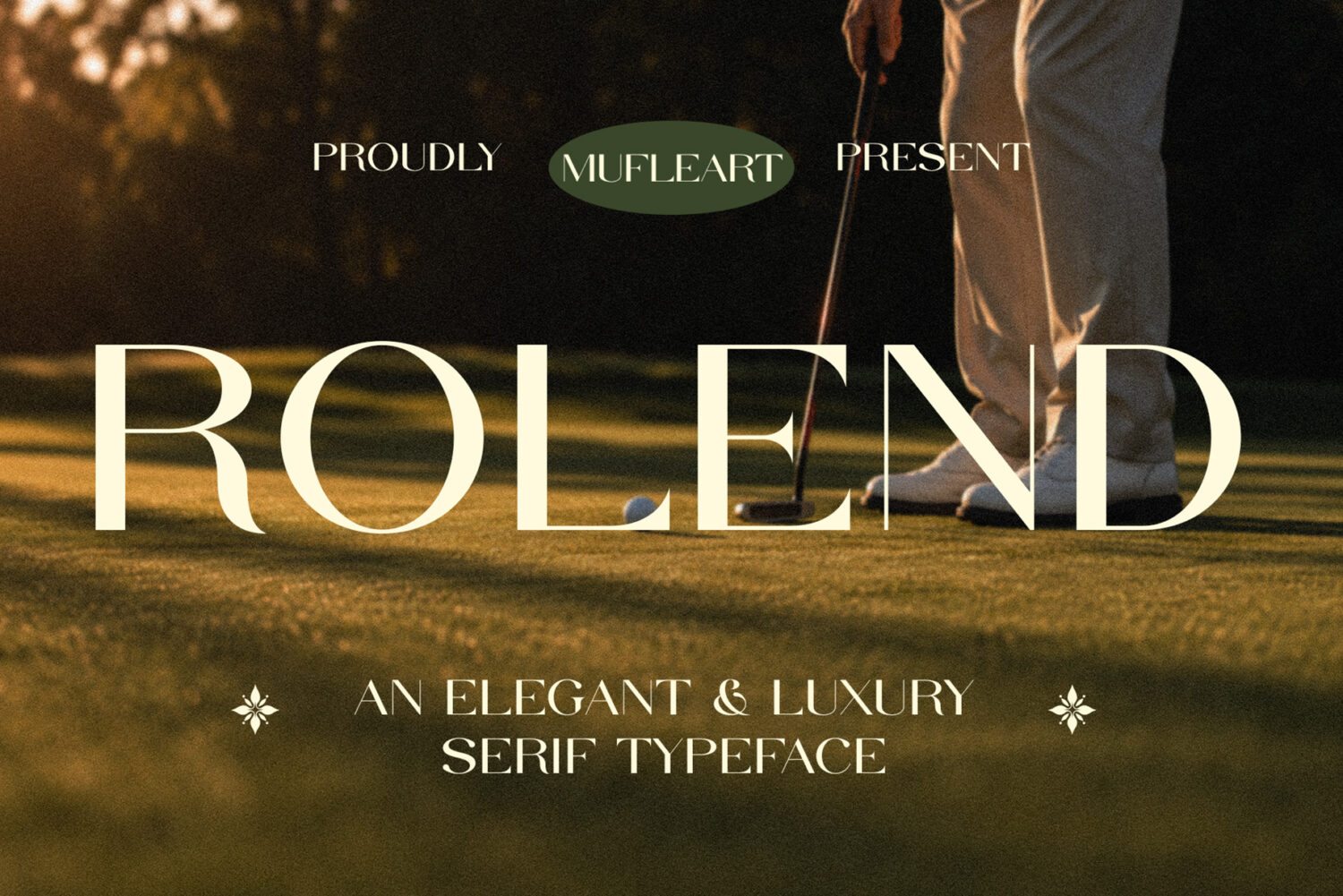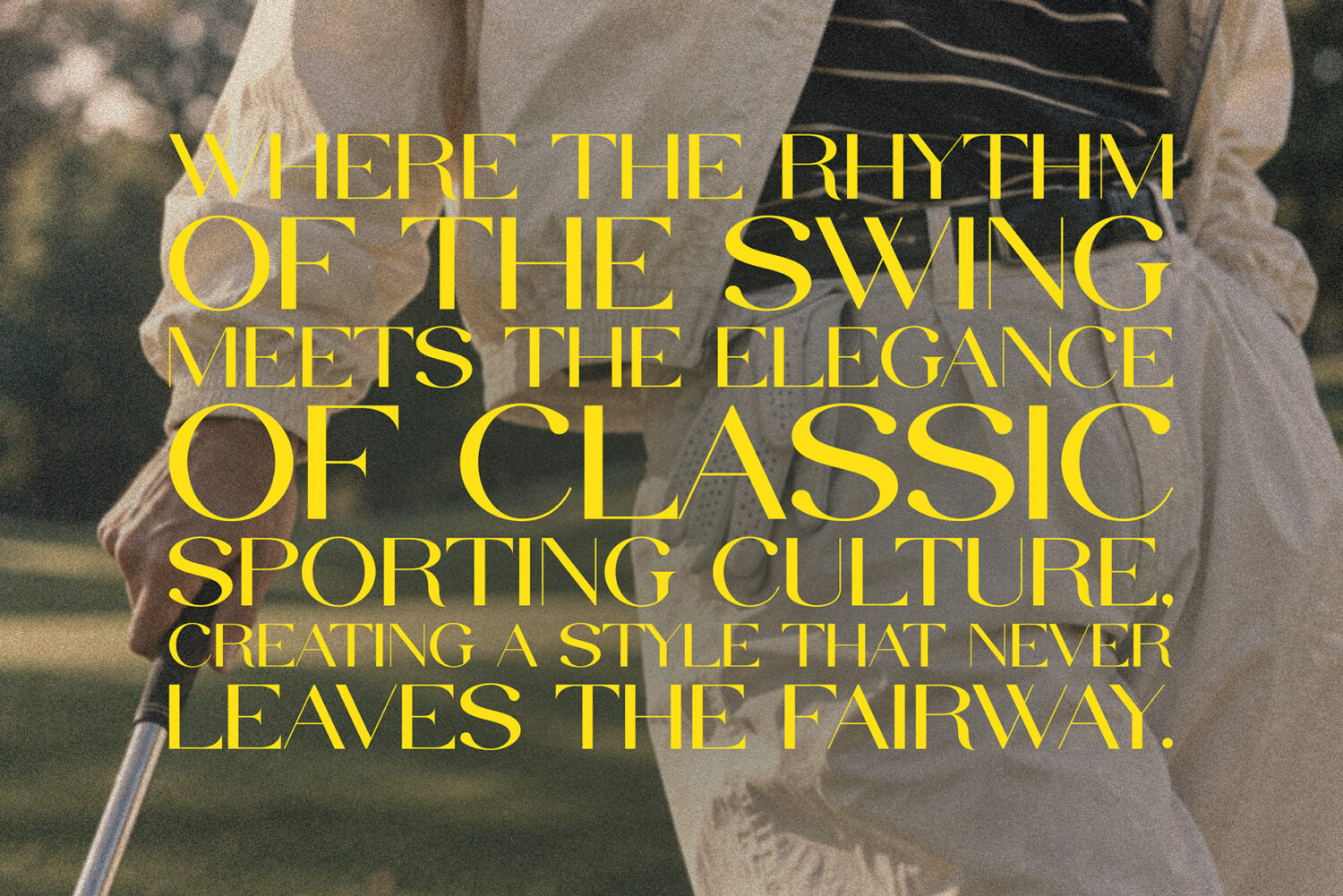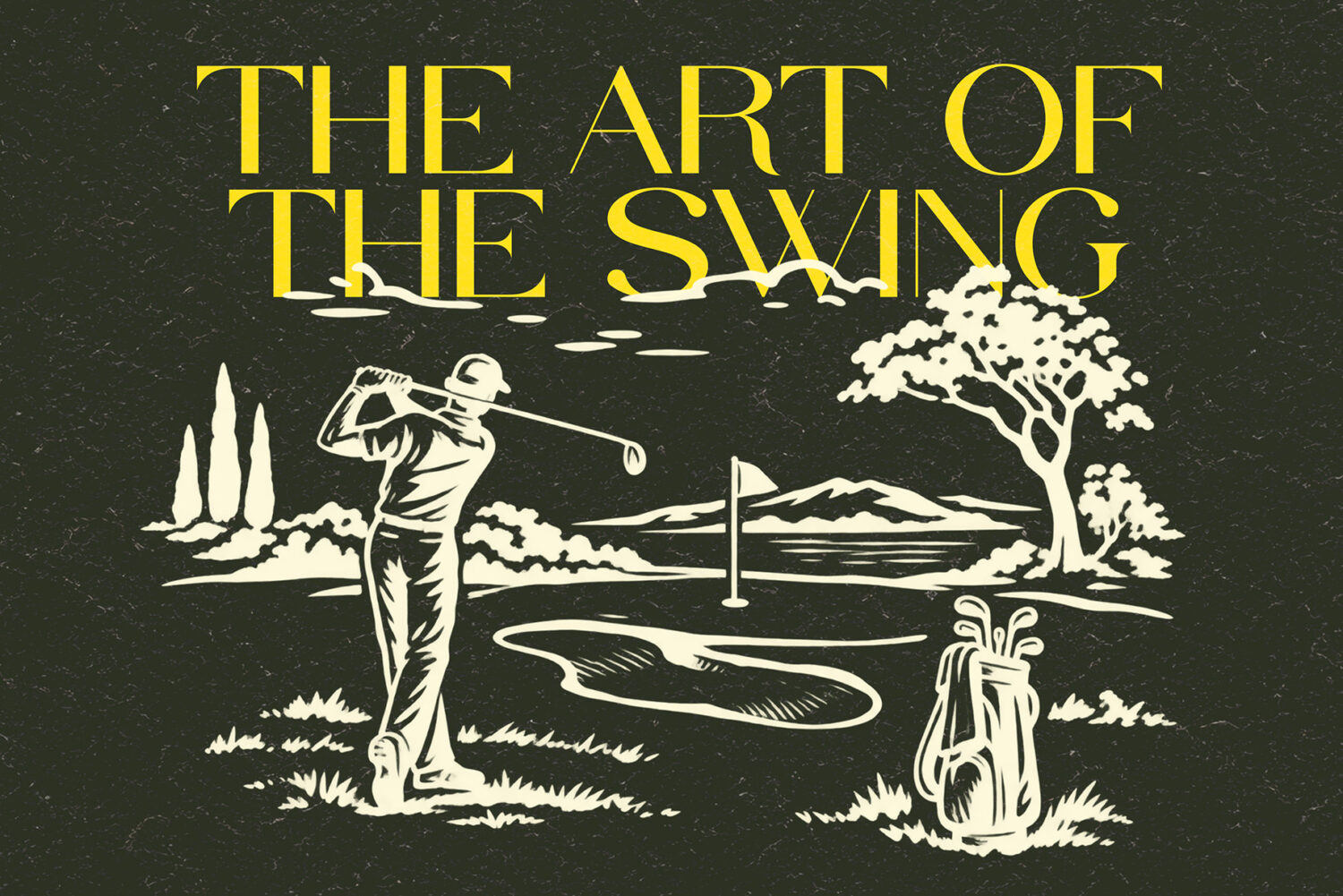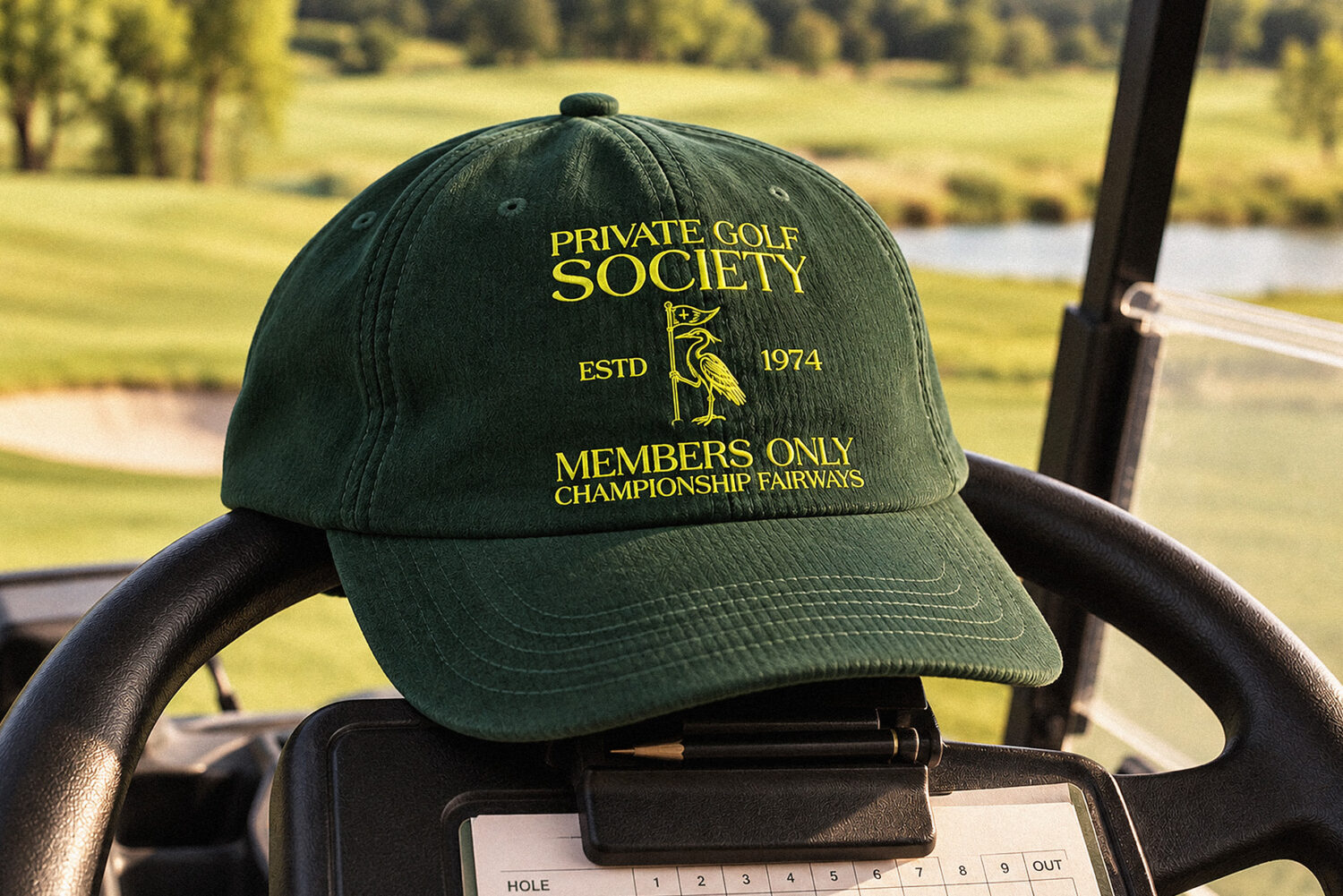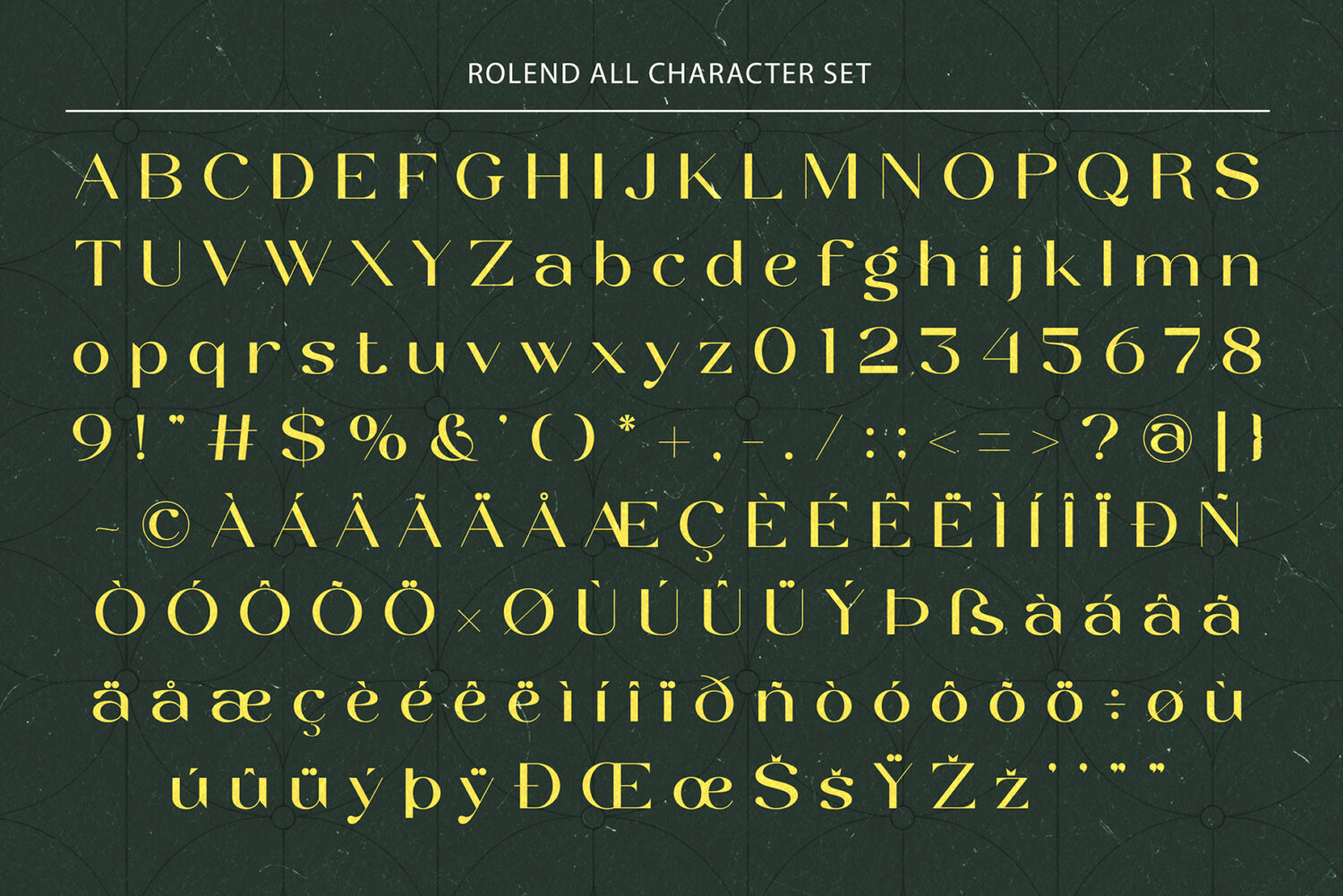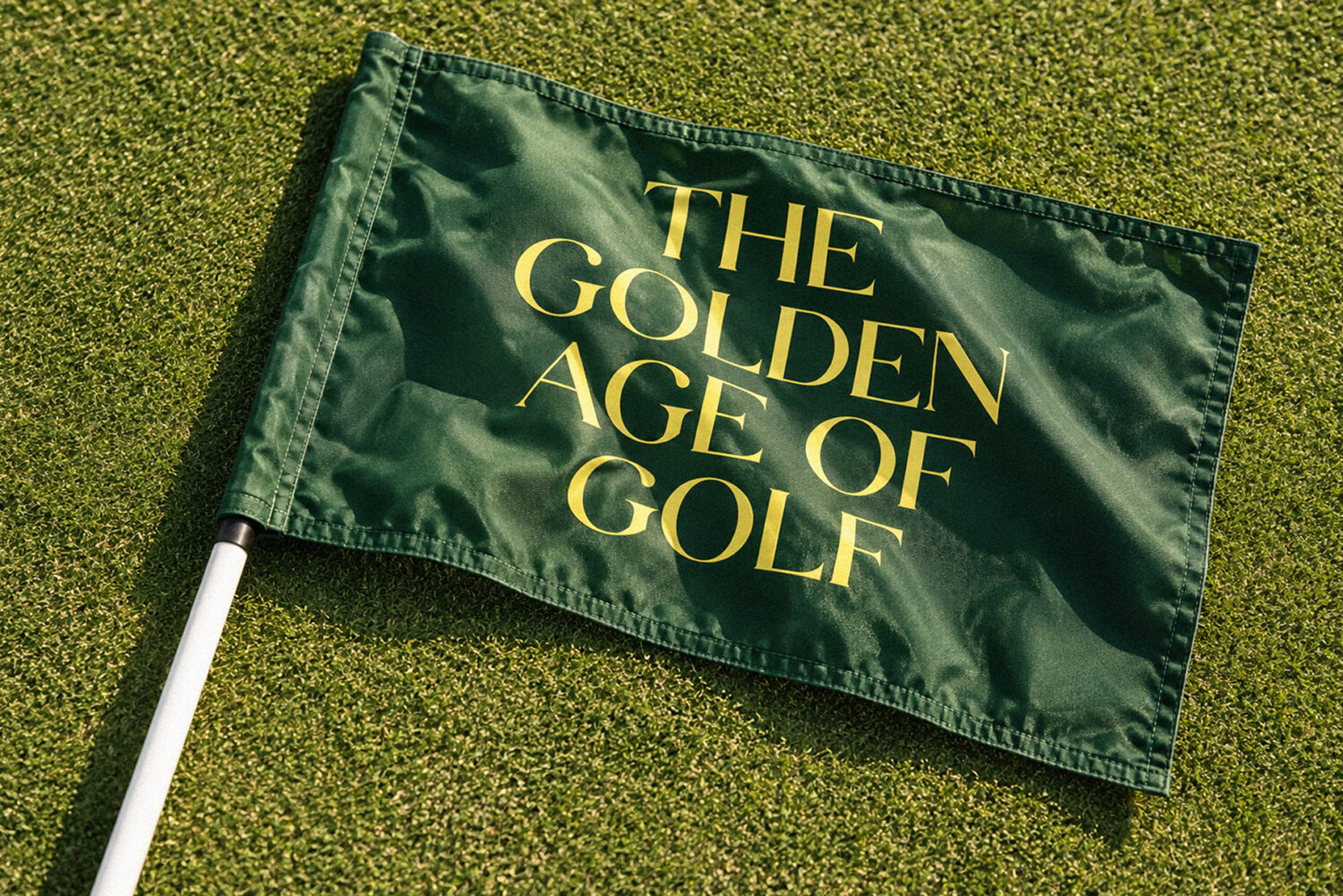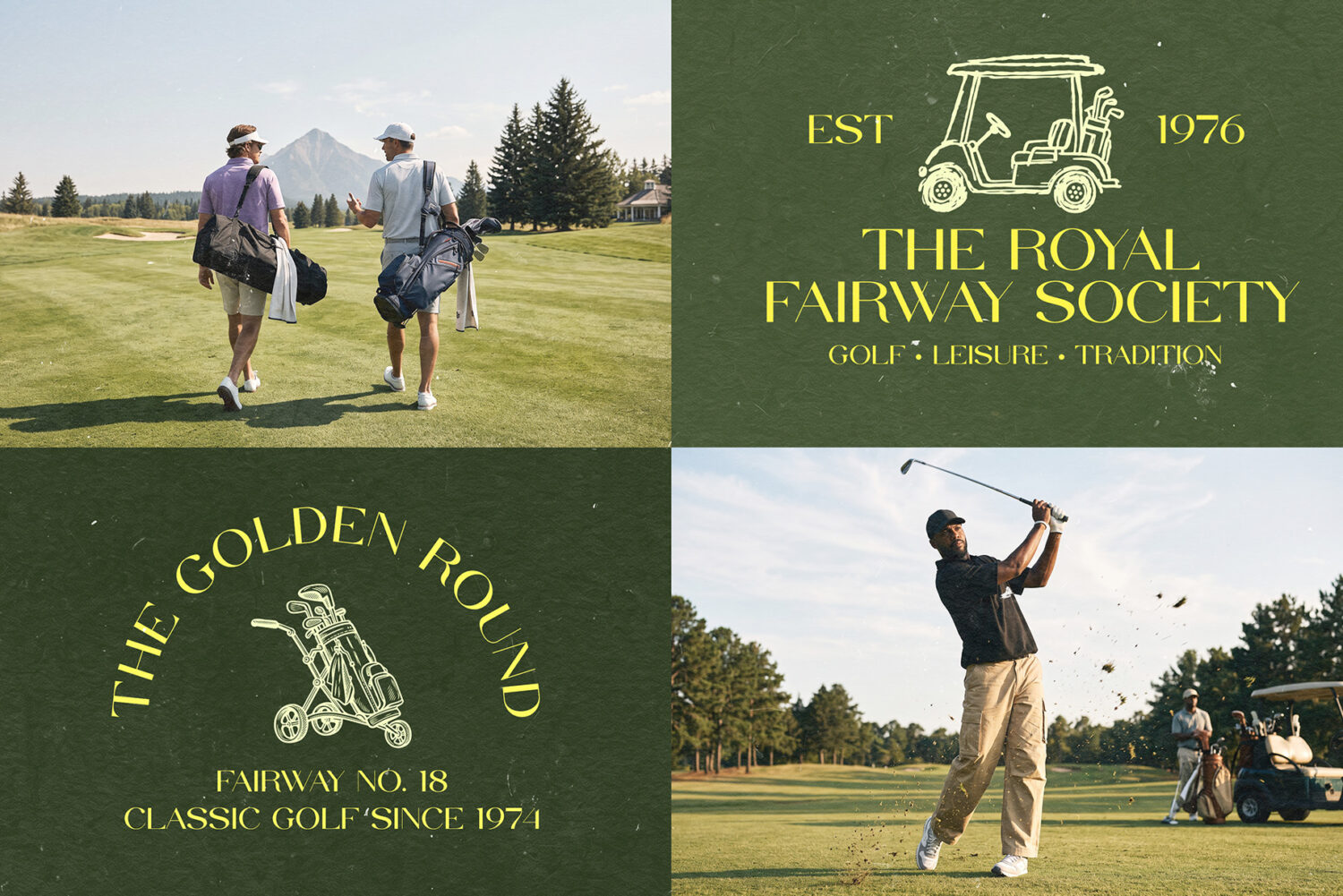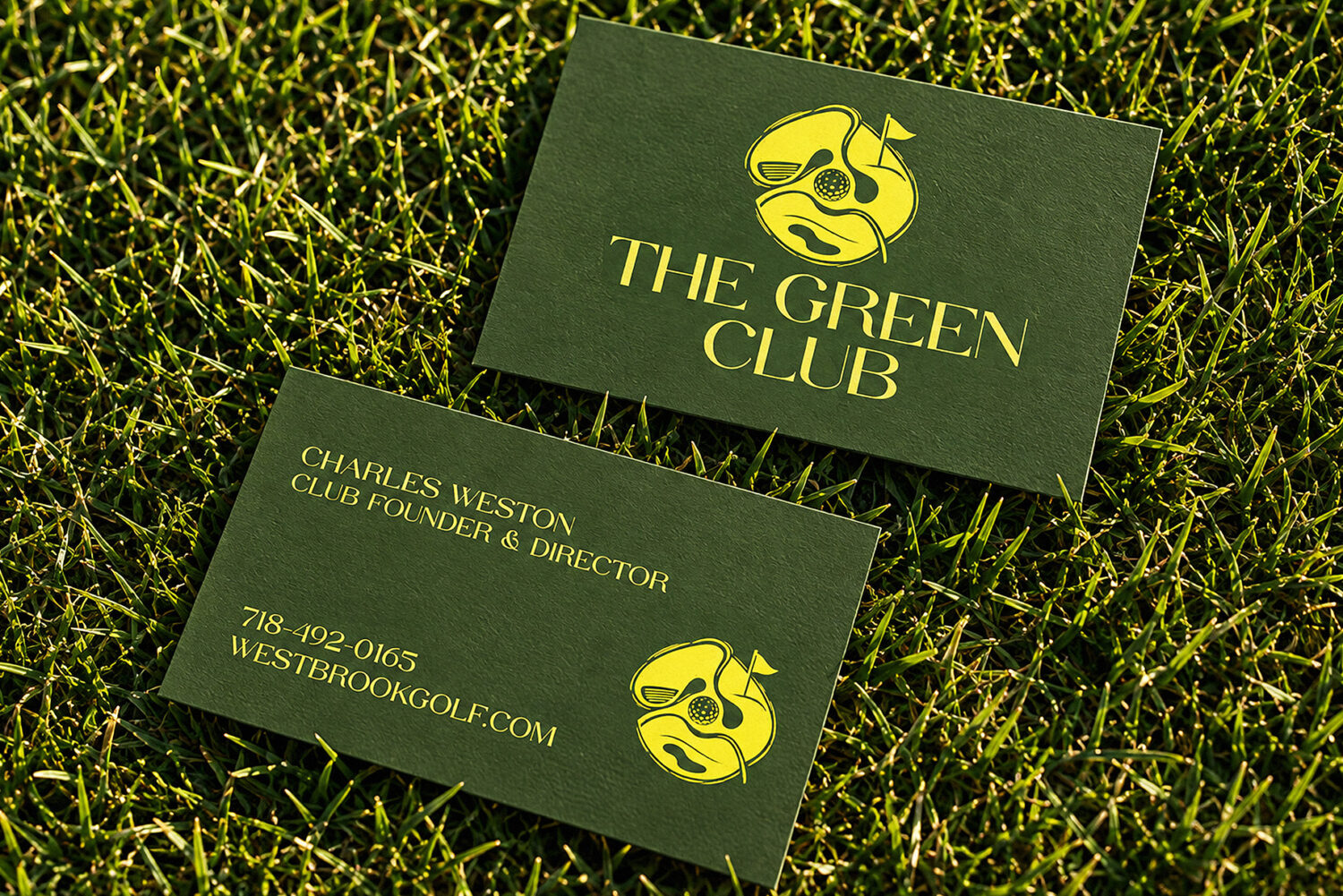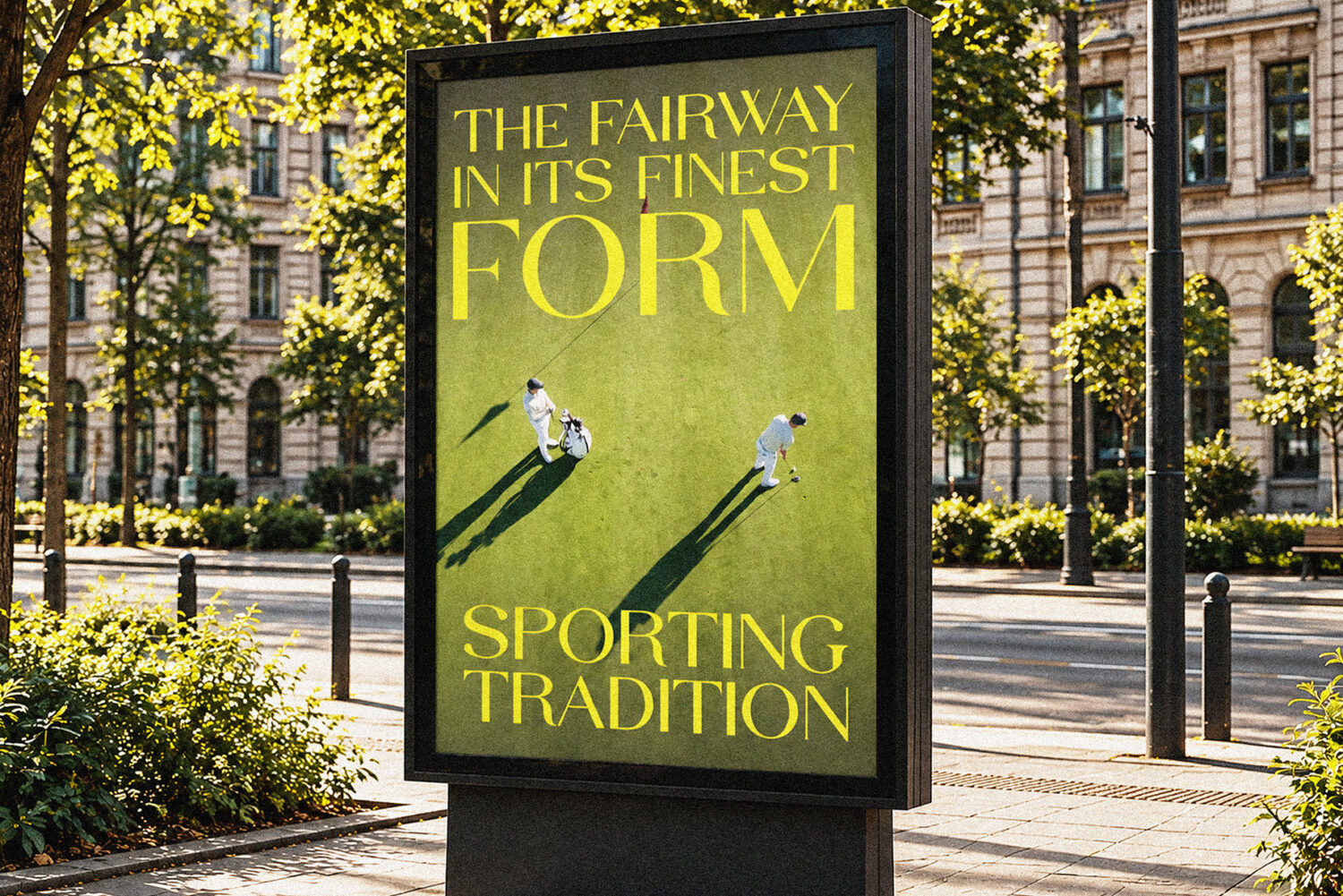
Rolend
Introducing **Rolend** the elegant, beautiful, and modern Serif. With its modern and minimalist look, Rolend brings a luxurious, classy, ​​and clean style to your projects such as websites, modern logos, brand identities, social media quotes, wedding stationery, magazines, and more!
Rolend features unique and classy capital letters A to Z and also comes with a beautiful font that can be customized for various projects and jobs you want.
Rolend is perfect for: logos, brands, wedding invitations, business cards, greeting cards, posters, magazines, social media, agenda prints, and websites.
Rolend – An Elegan & Luxury Serif Typeface Perfect for Branding & Logo Design